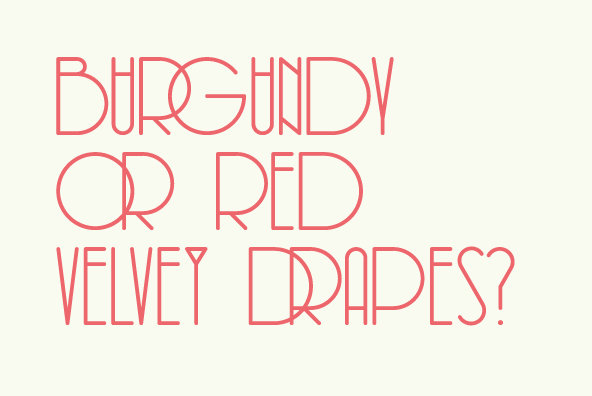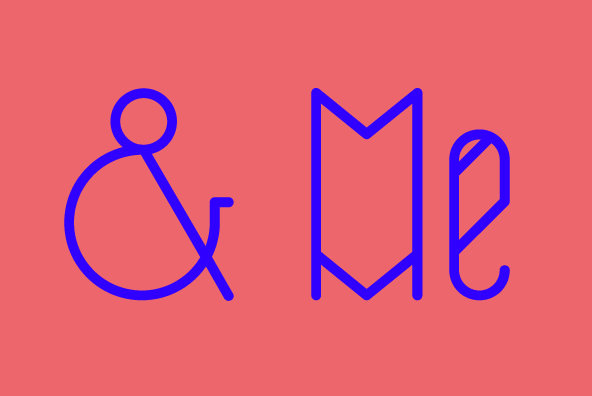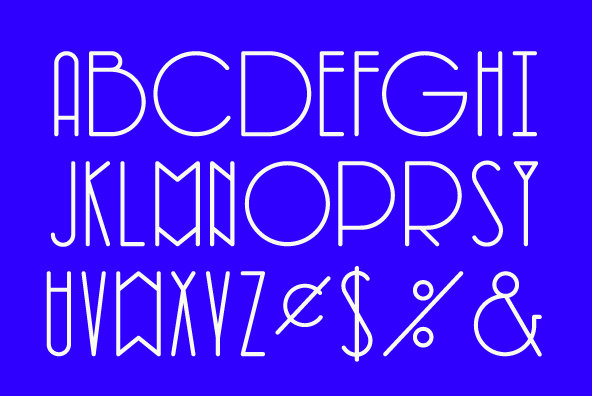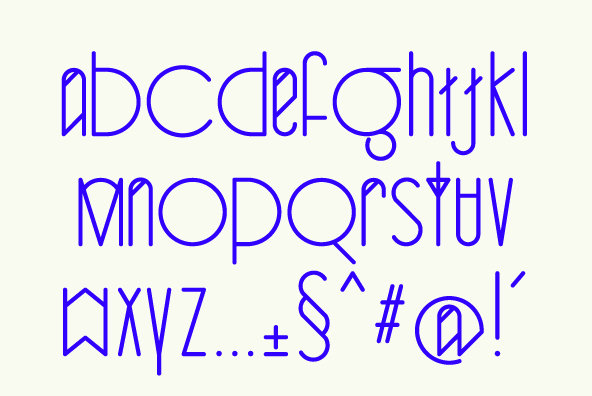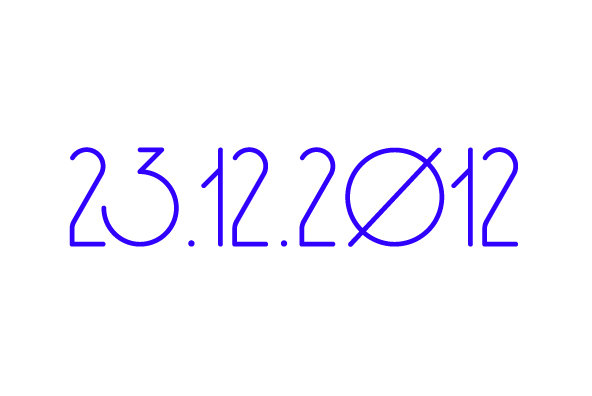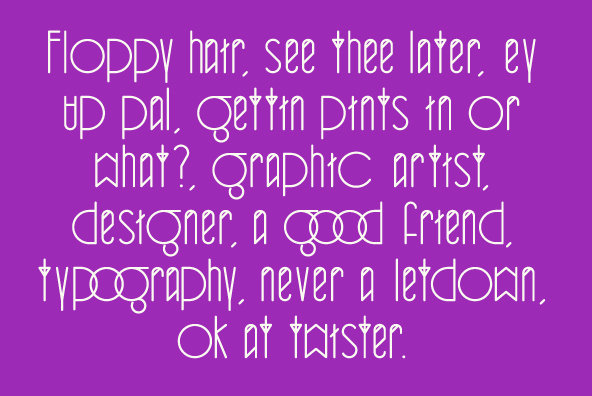
Designed in late 2011, El Santos is a beautifully simple yet elegant typeface. Perfect ellipses contrast narrow uprights creating a unique decorative equilibrium within words, sentences and paragraphs.
Designed in late 2011, El Santos is a beautifully simple yet elegant typeface. Perfect ellipses contrast narrow uprights creating a unique decorative equilibrium within words, sentences and paragraphs. Used as a display face El Santos is perfect for art, fashion, photographic and architectural editorial layout due to its hint of Art Deco in form. Two weights are available Light and Regular.